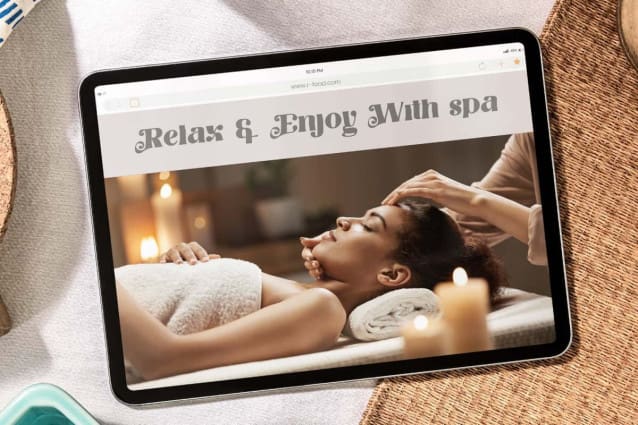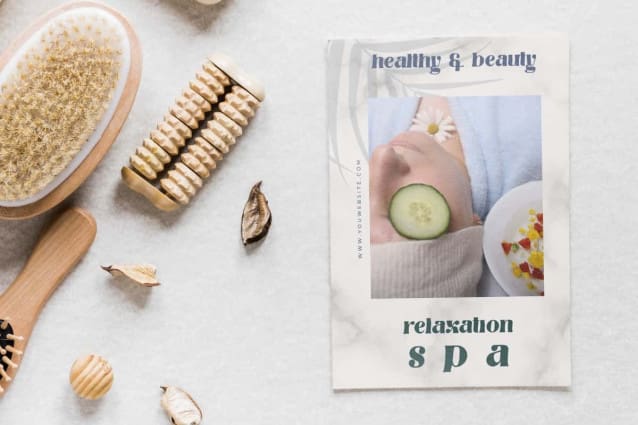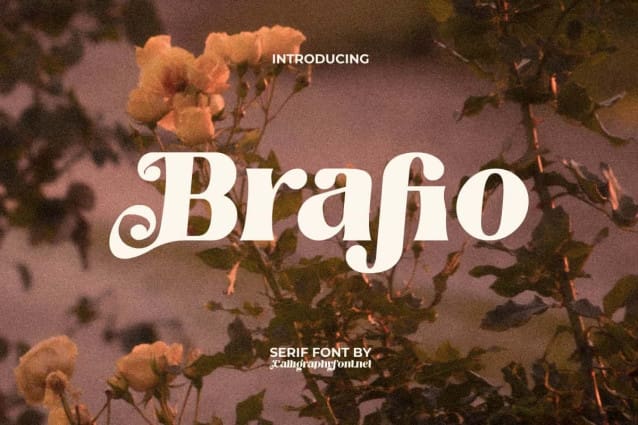
Brafio Font
Brafio Font is a beautiful unique serif font with a vintage feel. Provides extraordinary letter thickness with beautiful curls on each character. This will be very different and a choice that will help you give a high impact for the best results on your projects. Use it to create billboard, blogs, brand logo, brochure, cards design, cover, header, invitation, print, quotes, signage, title, website, etc.
Brafio Font is a strong serif typeface inspired by vintage typefaces with meticulous crafted. This typeface is perfect for people who are looking for a vintage aesthetic. Suitable for antique shop, beauty clinic, cafeteria, clothing brand, cosmetic, event organizer, graphic designs, florist, handicraft, homeware, photography, pottery, restaurant, spa salon, and more.